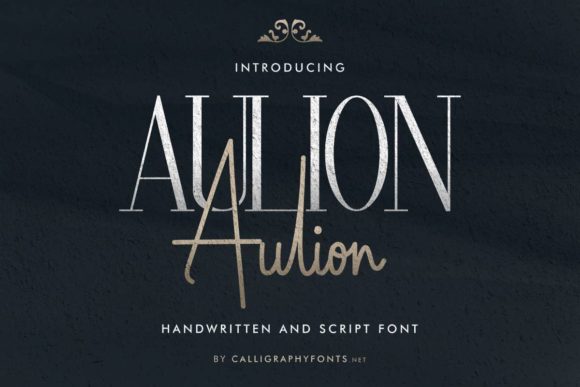
The Aulion Font: Elevate Your Designs with Elegance
I’ll never forget the time I was working on a project for a luxury brand, and I just couldn’t find the right font to match their high-end aesthetic. I spent hours scouring the internet, trying out different fonts, but nothing seemed quite right. That was until I stumbled upon the Aulion font. This beautiful duo font, consisting of a serif and handwritten style, instantly elevated my design to the next level. In this article, I’ll share my experience with the Aulion font, its features, and how to make the most of it in your designs.
An Honest Review of Aulion Font
• ✨ Versatility: Aulion font is incredibly versatile, making it suitable for a wide range of designs, from luxury branding to wedding invitations.
• ✅ Elegant and Glamorous: The serif and handwritten styles exude elegance and glamour, adding a touch of sophistication to any design.
• 💫 High-Quality: The font is beautifully crafted, with attention to detail and a clear focus on quality.
While the Aulion font is exceptional, there are a few minor quirks to be aware of:
• ⚠️ Glyph Overload: With so many glyphs and stylistic alternates available, it can be overwhelming to navigate, especially for beginners.
• 🤔 Pairing with Other Fonts: Aulion font is so elegant that it can be challenging to pair it with other fonts without overpowering them.
The Backstory of Aulion Font
The Aulion font was designed by a team of typographers who aimed to create a font that would exude elegance and sophistication. Inspired by classic serif fonts and modern handwritten scripts, Aulion font was crafted to be versatile and beautiful. The design team poured their hearts into creating a font that would meet the needs of designers and crafters alike.
Q: What type of designs is Aulion font best suited for?
A: Aulion font is incredibly versatile and can be used for a wide range of designs, including luxury branding, wedding invitations, and high-end editorial projects.